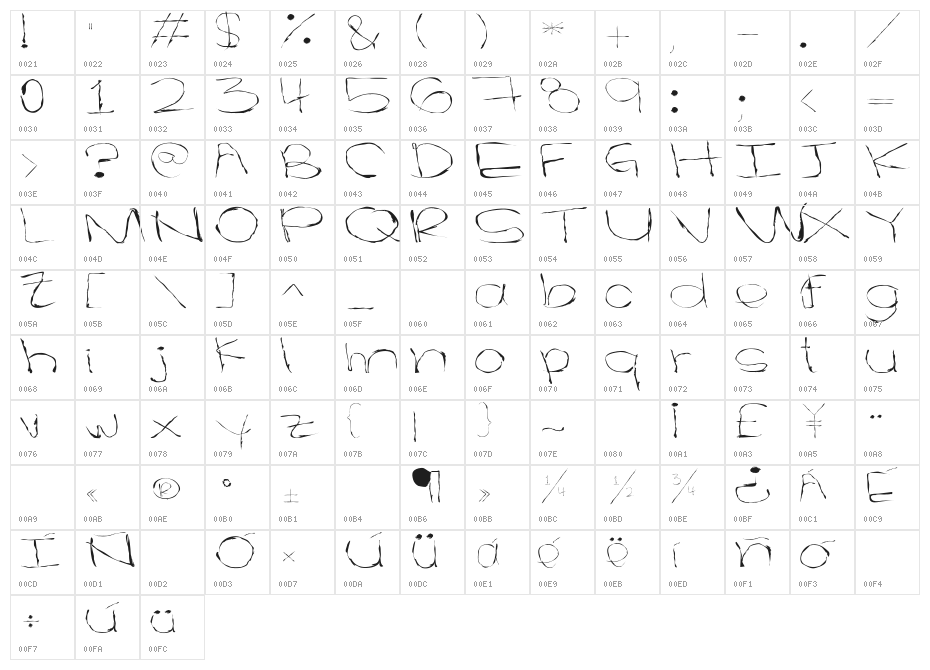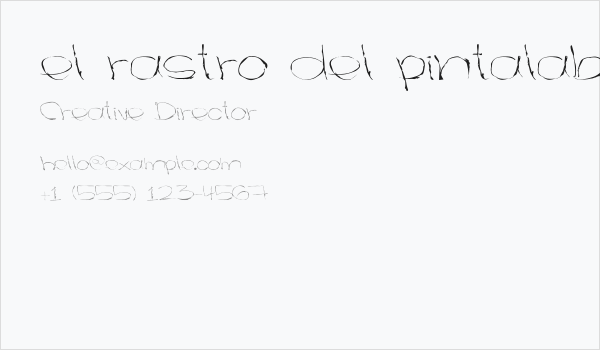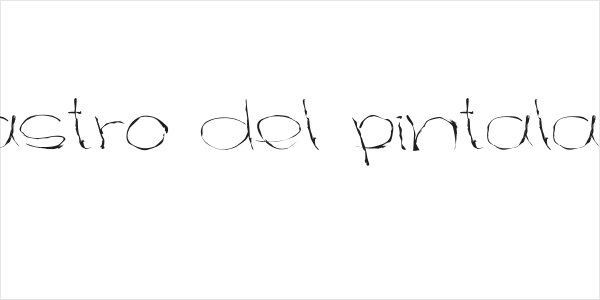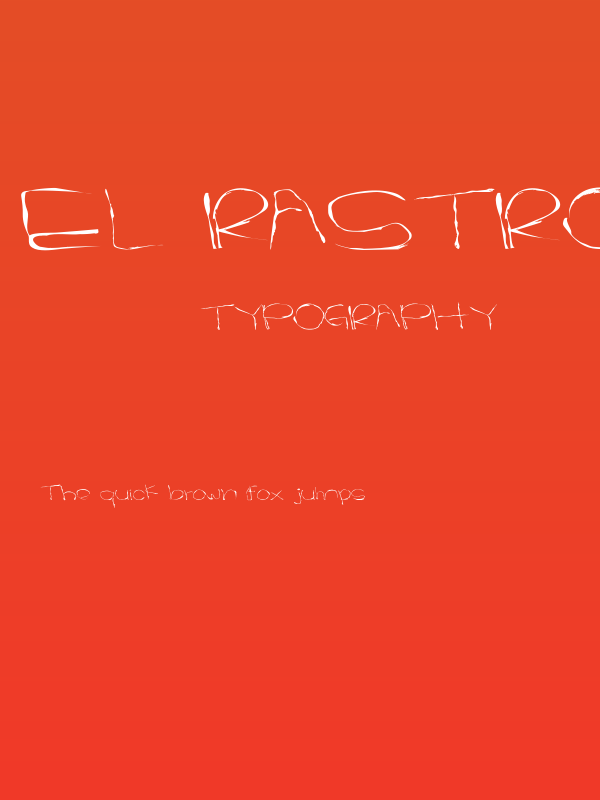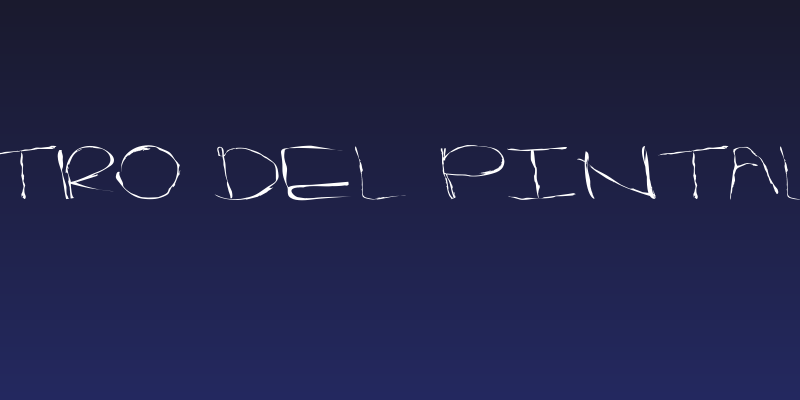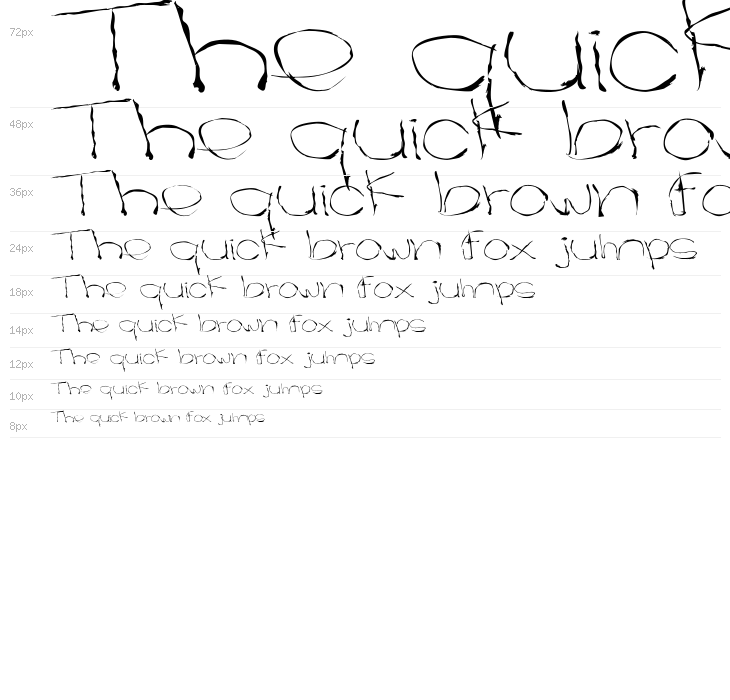
el rastro del pintalabios Font
el rastro del pintalabios Description
This font features a unique, artistic style that mimics the appearance of brush strokes or ink trails. Each character is crafted with a sense of movement and fluidity, giving it a dynamic and expressive quality. The letters have irregular edges and varying stroke thickness, creating a hand-drawn effect that is both modern and organic. The uppercase and lowercase letters maintain a consistent style, while the numerals and special characters complement the overall aesthetic. This font is perfect for projects that require a personal touch or an artistic flair.
| Overall Style | Artistic |
| Use Case | Logos, Posters, Invitations |
| Proposed Projects | Ideal for art projects, creative branding, invitations, and expressive posters. |